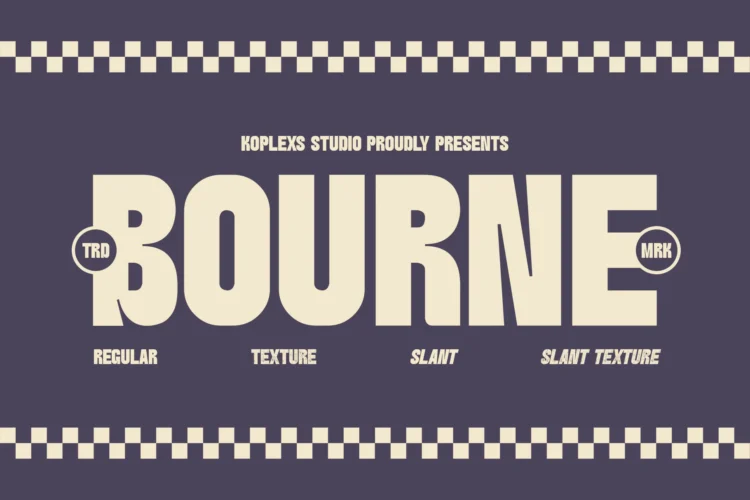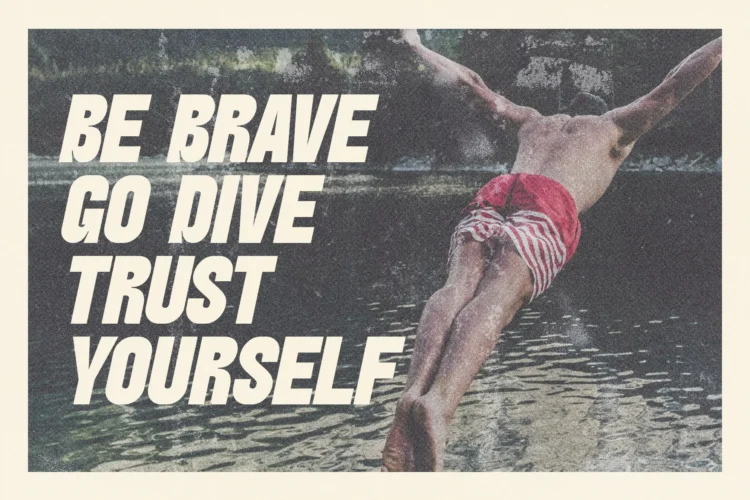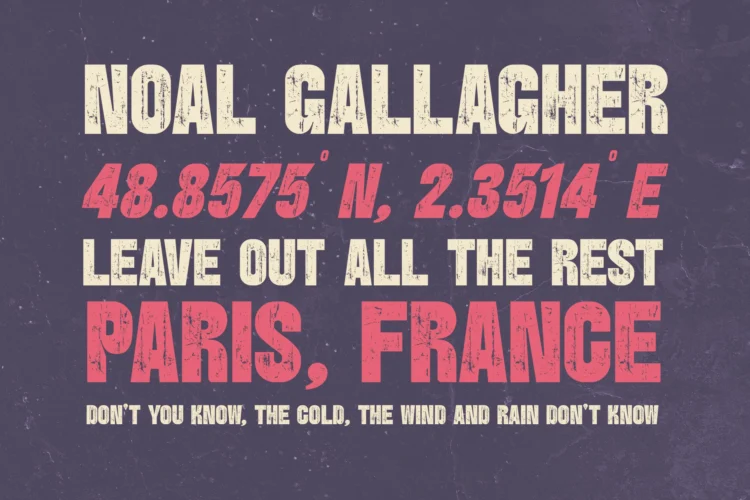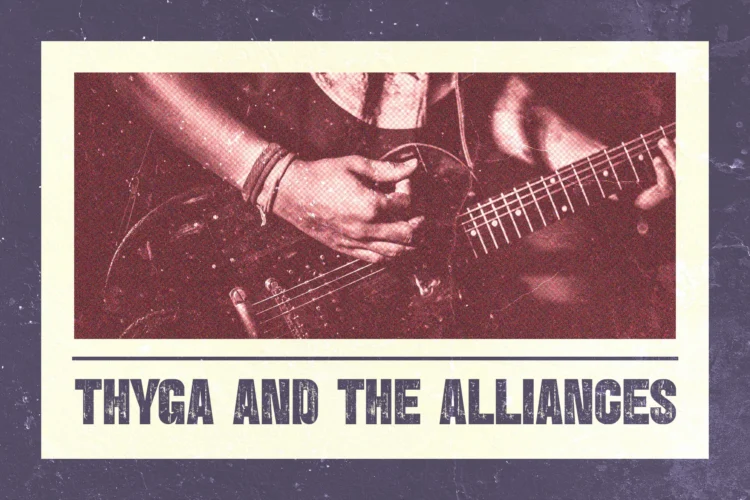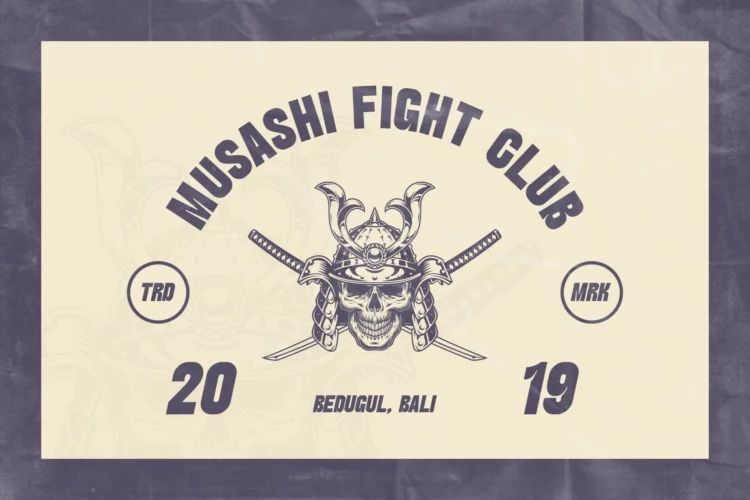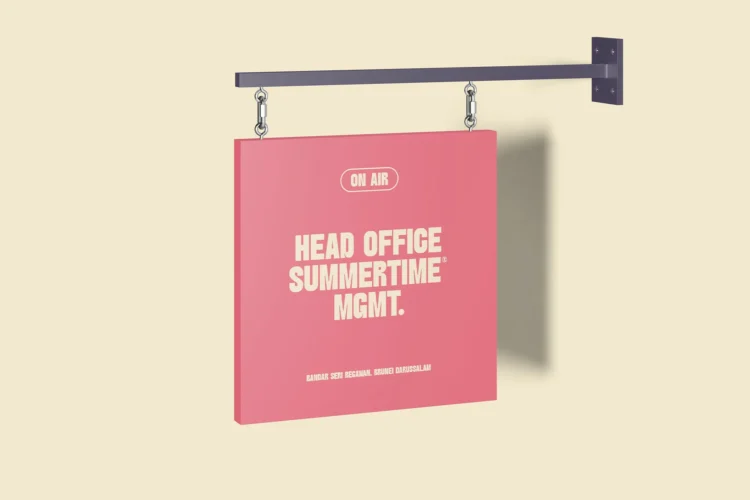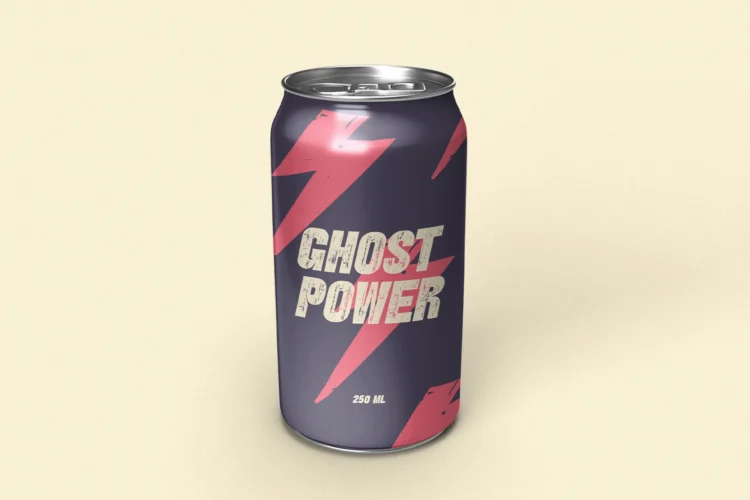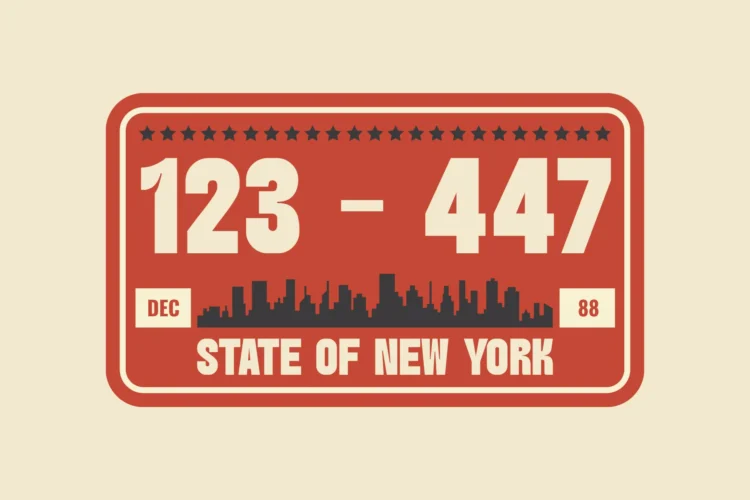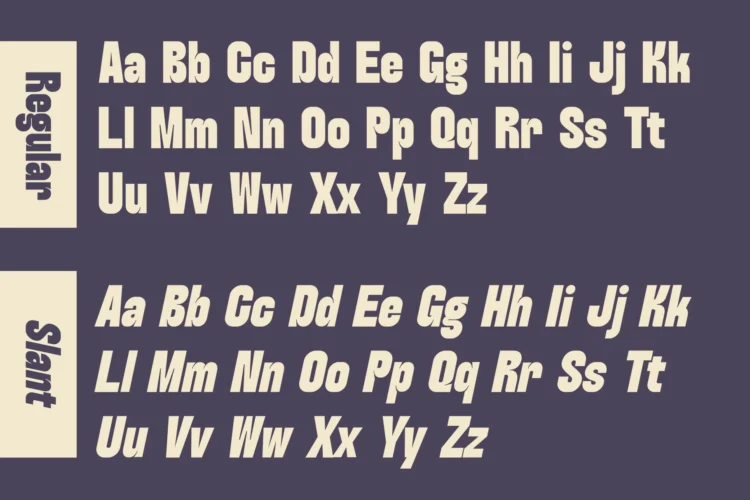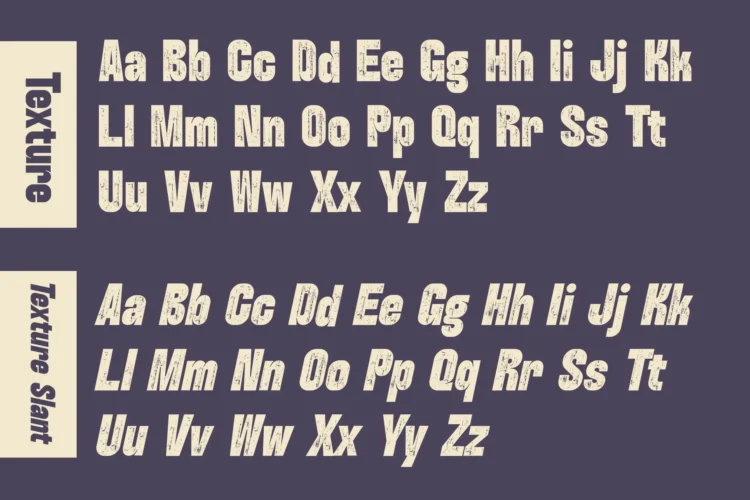
Bourne Font – Vintage Retro Sans Serif Font with Textured & Modern Stamp Style for Branding and Headlines
Bourne Font is a bold and powerful Vintage font that blends the nostalgic charm of retro typography with a sleek modern font aesthetic. Designed by Koplexs Studio, this Sans Serif font stands out with its solid, geometric forms and beautifully crafted texture font variations making it perfect for designers who want to create timeless yet contemporary visuals.
Bourne Font comes in four unique styles: Regular, Texture, Slant, and Slant Texture, allowing you to adapt it easily to various design moods from rugged and adventurous to clean and modern. Each letterform carries a confident presence, ideal for standout visuals in both print and digital use.
Bourne Font is versatile and works beautifully for :
Branding font for outdoor, lifestyle, or apparel brands
Logo font with retro or modern identity concepts
Heading font and headline font for magazines, posters, and campaigns
Label font and packaging font for craft goods, beverages, or handmade products
Adventure font for travel posters, nature designs, and outdoor promotions
Poster font for music gigs, vintage ads, and sports promotions
Typography for merchandise, signage, and creative social media posts
Bourne Font Features:
- 4 Font Styles: Regular, Texture, Slant, and Slant Texture
- Strong geometric Sans Serif font with bold and balanced proportions
- Authentic textured details for a vintage and handcrafted feel
- Great legibility in large and small sizes
- Multilingual support with uppercase and lowercase characters
- Easy pairing with minimalist or modern design themes
With Bourne Font, your design will radiate confidence, creativity, and a classic sense of style — perfect for designers who want their message to be bold and unforgettable.
Bring bold energy and timeless style to your next project with Bourne Font.